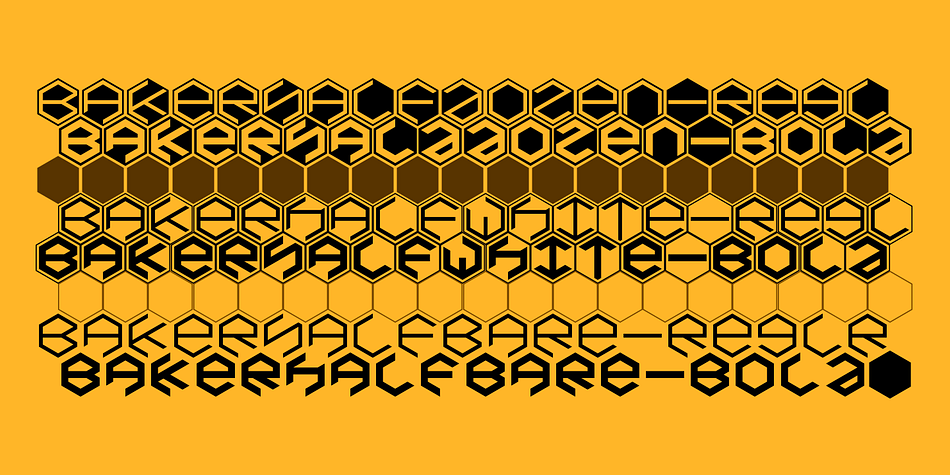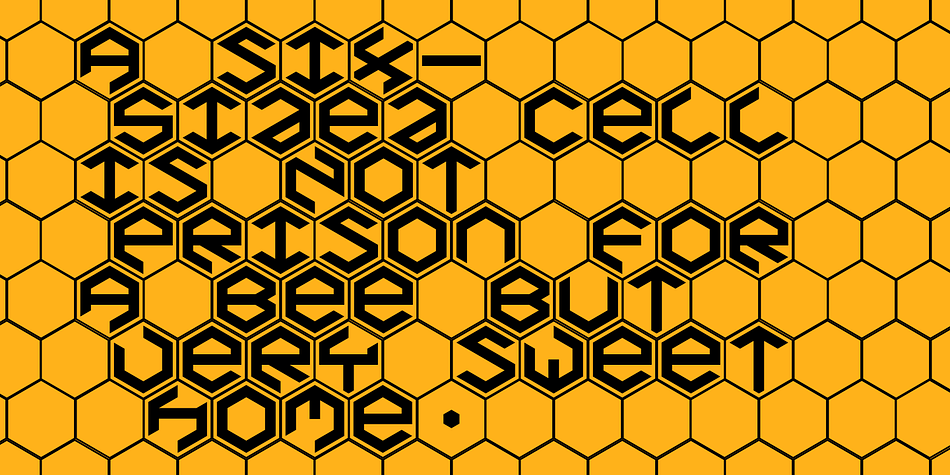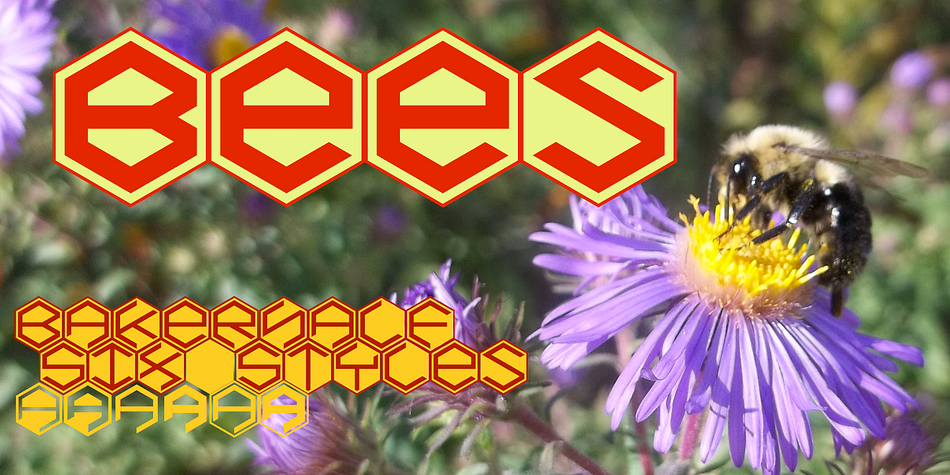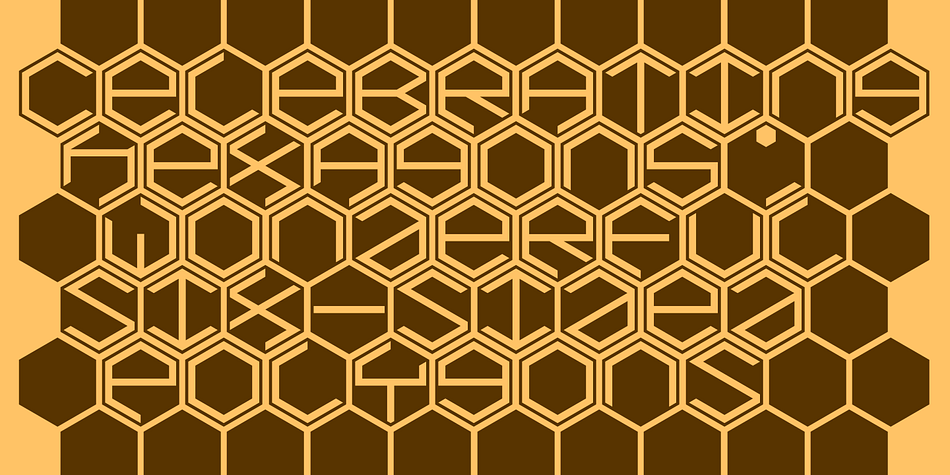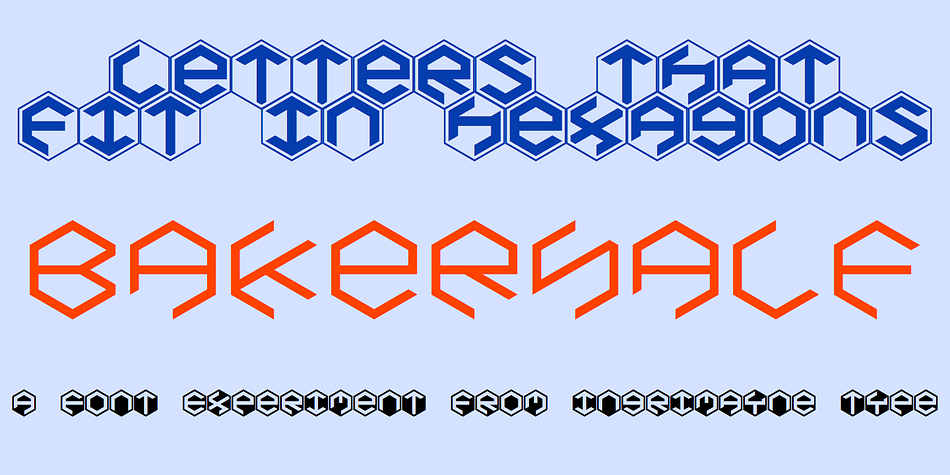
Designed by Robert Schenk, BakerHalf is a novelty font family. This typeface has six styles and was published by Ingrimayne Type.
One of the odder things I remember from high school (40+ years ago) is the tile floor of hexagons in the bathroom. There is something fascinating with the way hexagons fill the plane.
BakerHalfDozen is made of white letters that fit on black, hexagonal tiles. BakerHalfWhite switches the letters to black on white tiles, and BakerHalfBare eliminates the tiles. There are no true lower-case letters, but some letters have alternate shapes.
You can use whatever variant you prefer.
To make the tiles line up correctly, alternate lines must be indented half a space. Use the}{ characters (brackets) to do this.